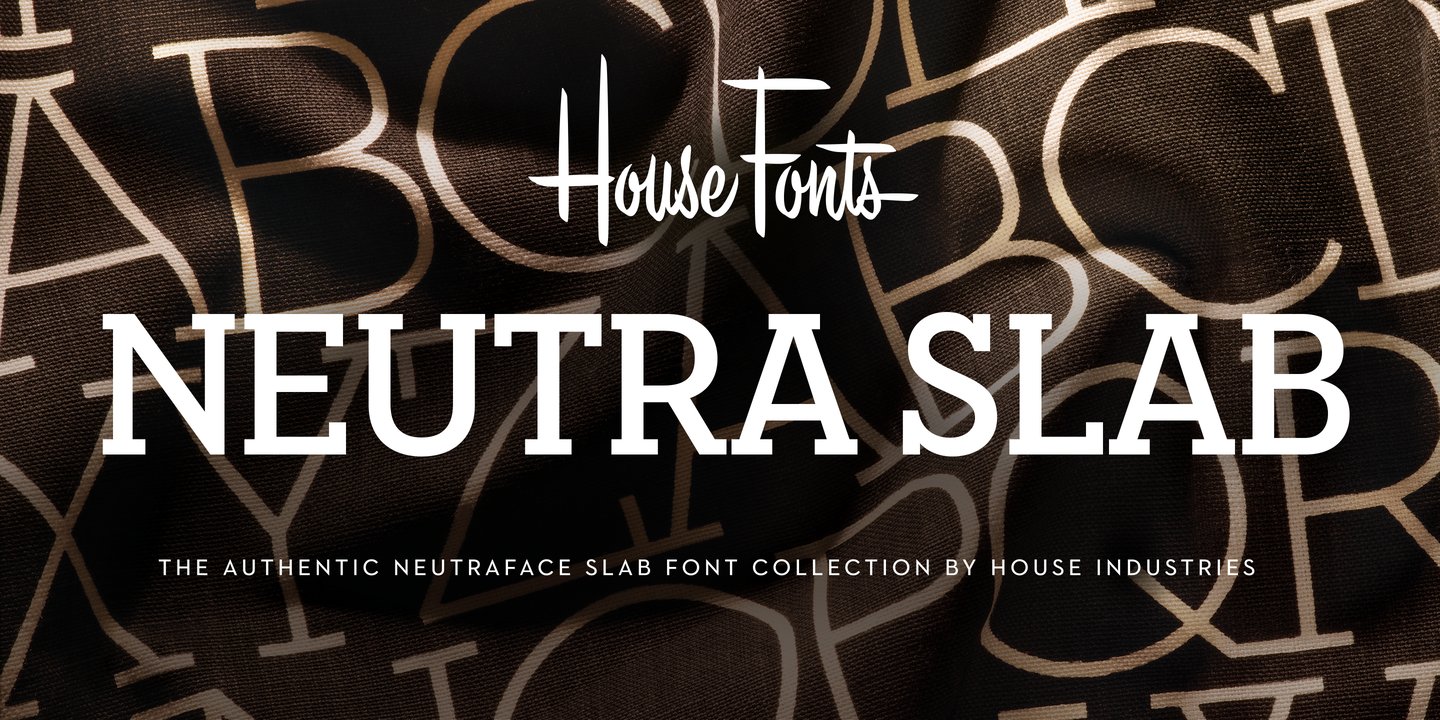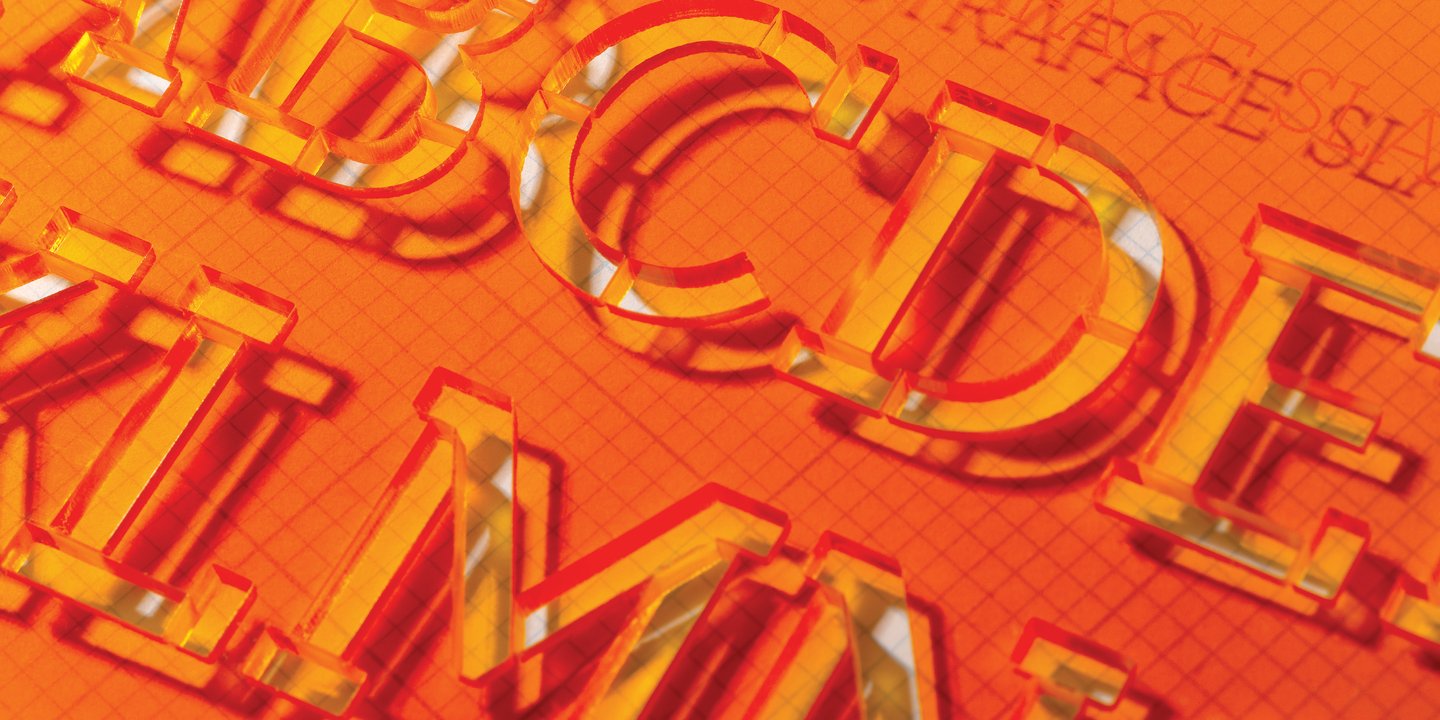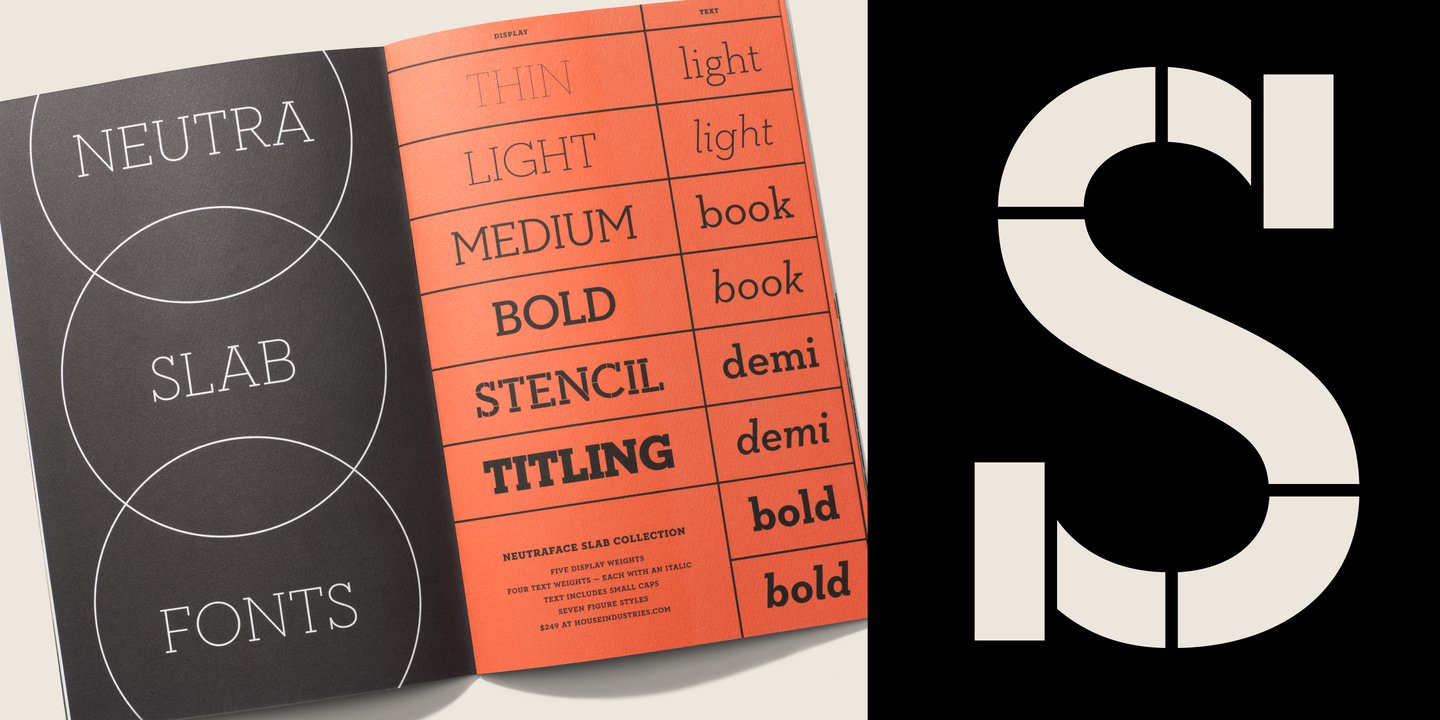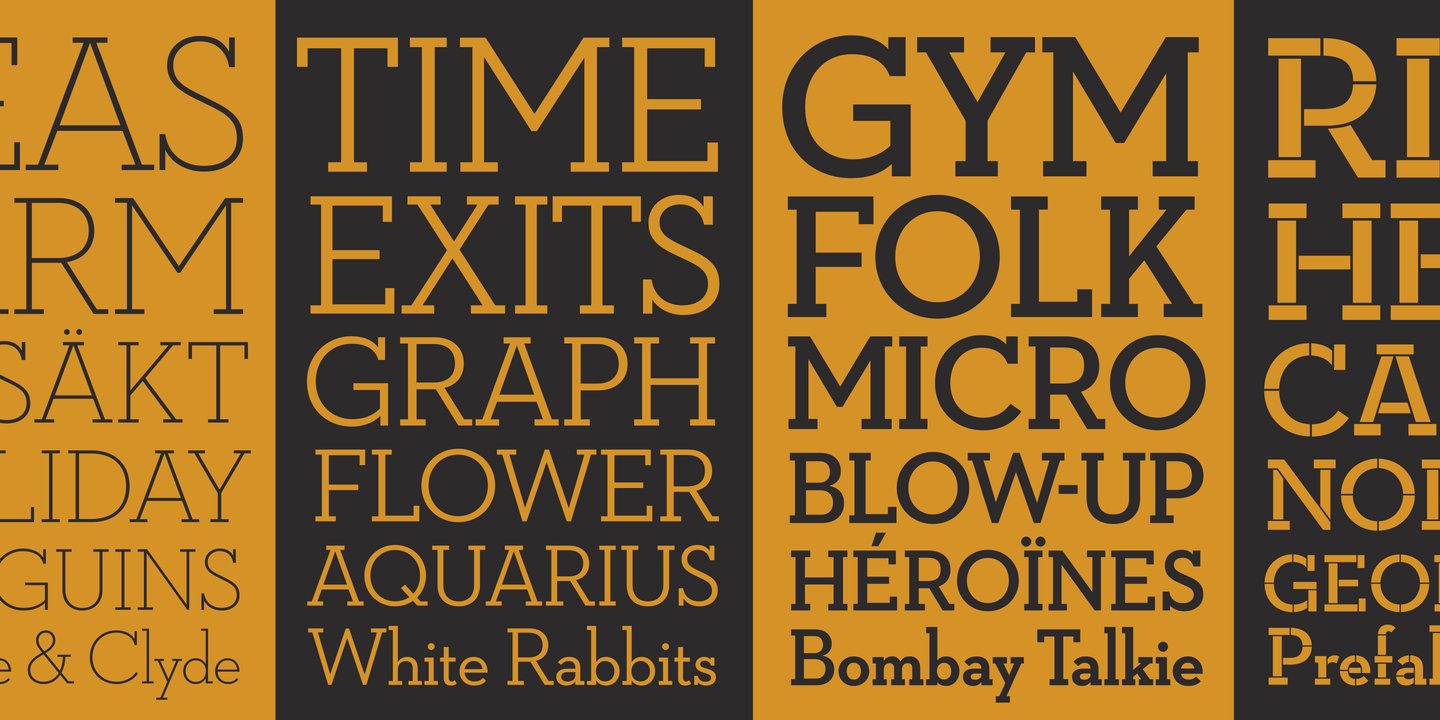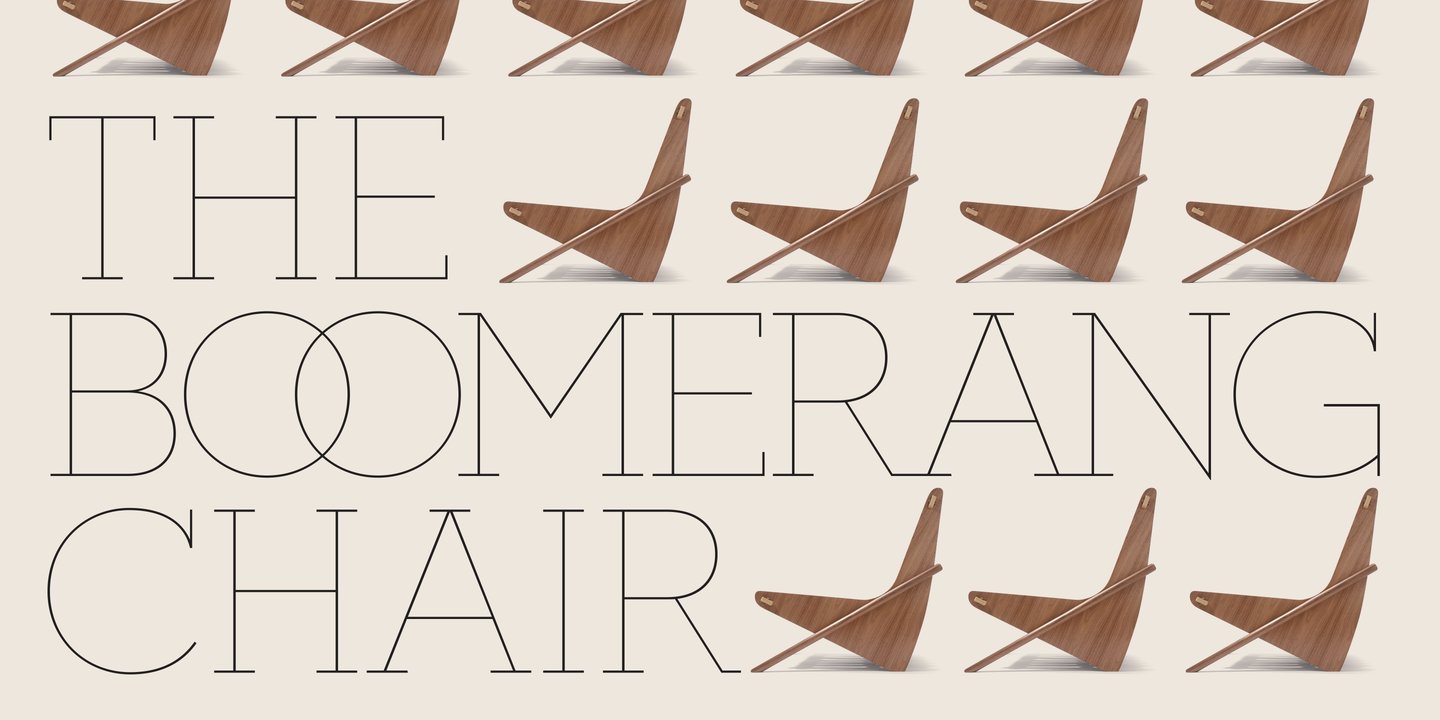
About the Neutraface Slab Display Font
About Neutraface Slab Display Font Family From fine print and red ink in corporate annual reports to huge three dimensional signage, Neutraface has become the definitive designers’ workhorse. Now this geometric juggernaut boasts even more font firepower with the addition of the Neutraface Slab family. Neutraface Slab features five display weights, four text weights with italics plus a unique stencil style that work together like a typographic symphony or can stand alone like accomplished soloists. Just like its sans-serif counterparts,
Neutra Slab Text includes small caps, seven figure styles and a host of other sophisticated OpenType features that have been integrated in a single seamless package. The complementary display weights afford an uncompromising statement that can range from thin and delicate to bold and bombastic. FEATURES: MORE ALTS: Neutraface Slab comes with several alternate characters, accessed through either OpenType stylistic sets or through the Stylistic Alternates feature.TITLING ALTERNATES: The distinctive lower crossbars of the original Neutraface are included in Neutraface Slab as the Titling Alternates OpenType feature.
TEXT FIGURES: All variations of Neutraface Slab Text feature seven figure styles. Included are text figures for use in running text, lining figures for use with uppercase forms and small caps figures. Each of these styles is supplemented with tabular figures for use in columnar settings. Plus, superscript and subscript figures are included for use in fractions, footnotes, etc.
NEUTRAFACE SLAB CREDITS: Typeface Design: Christian Schwartz, Kai Bernau, Susana CarvalhoTypeface Production: Ben Kiel, Hannes FamiraTypeface Direction: Christian Schwartz, Andy Cruz, Ken Barber Like all good subversives, House Industries hides in plain sight while amplifying the look, feel and style of the world’s most interesting brands, products and people. Based in Delaware, visually influencing the world. Designers: Christian Schwartz, Susana Carvalho, Kai BernauPublisher: House IndustriesFoundry: House IndustriesDesign Owner: House IndustriesMyFonts debut: Oct 4, 2021 Neutraface Slab Display